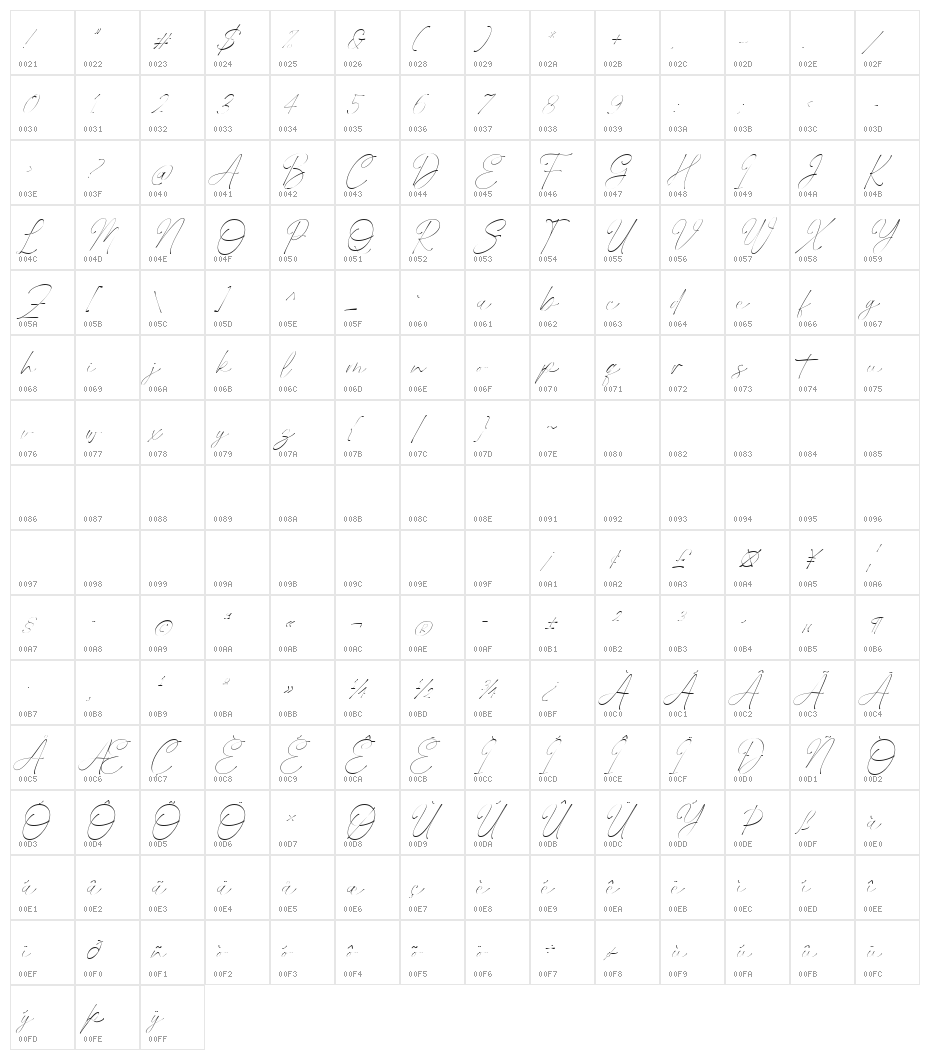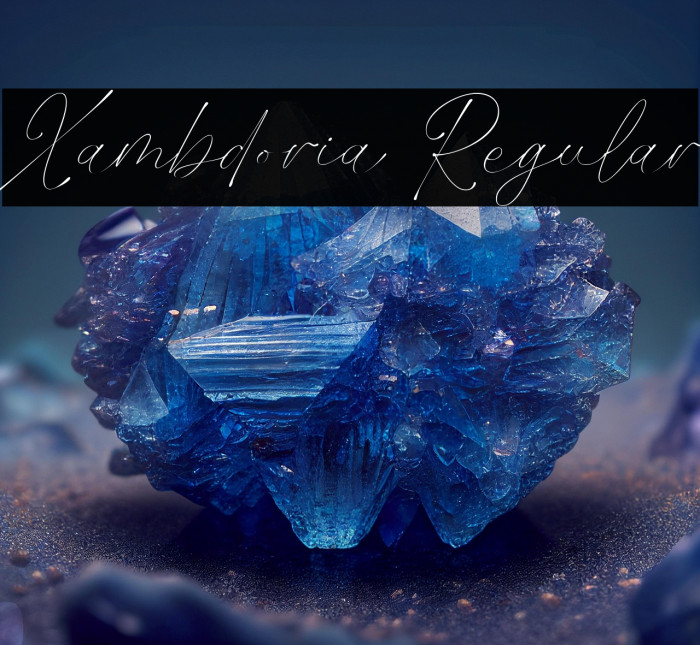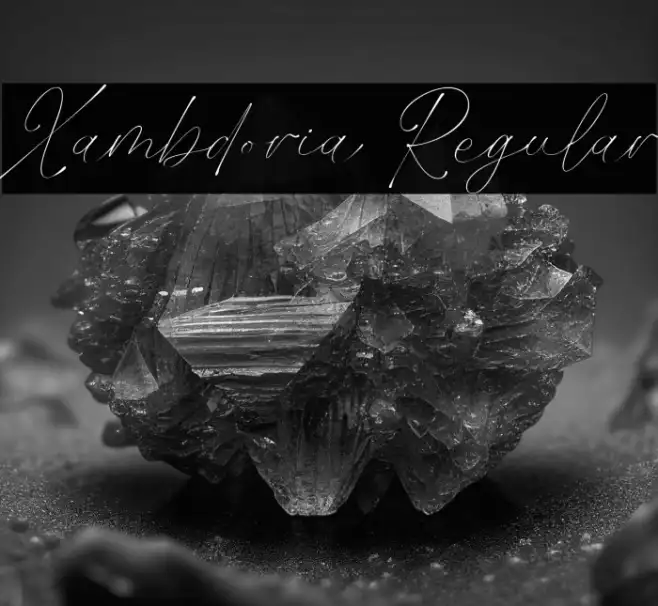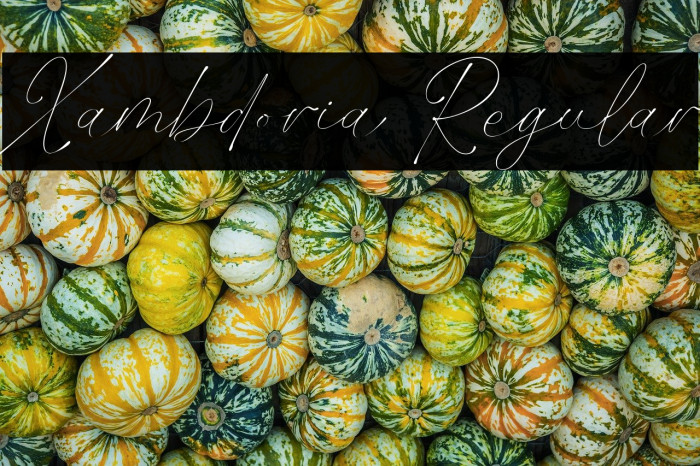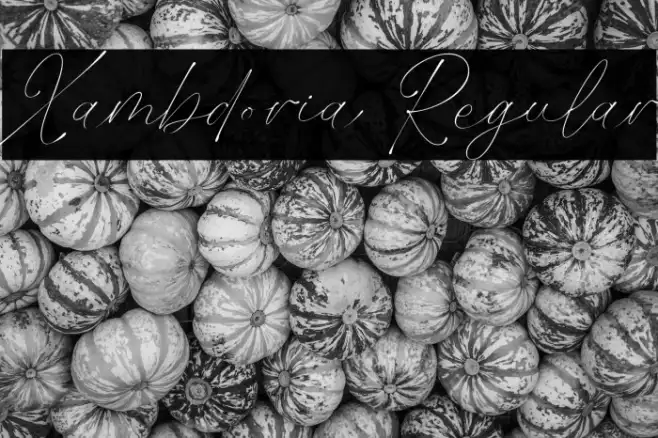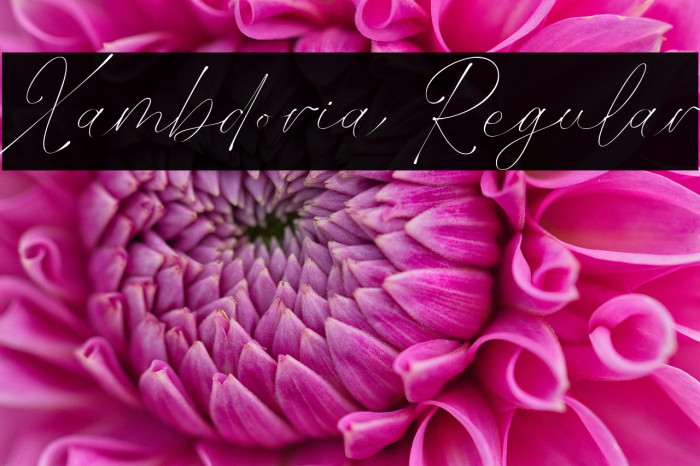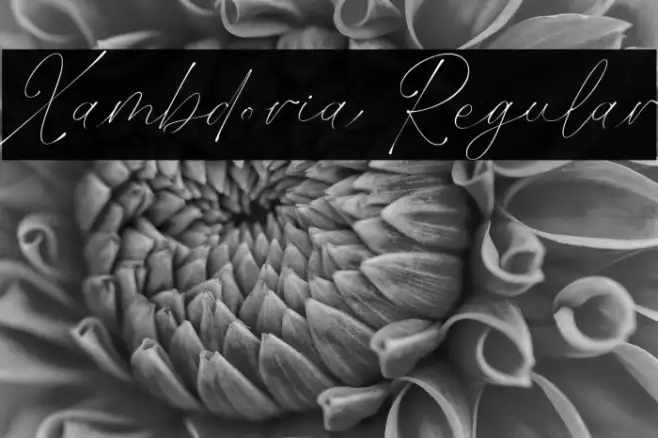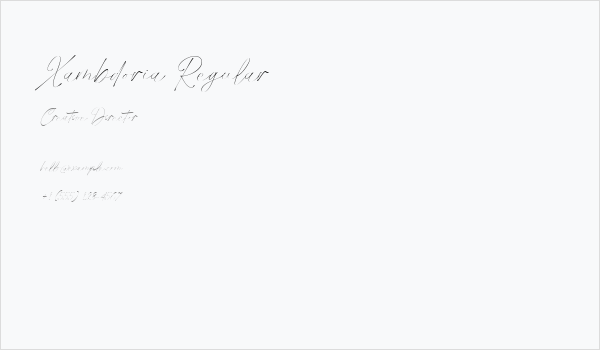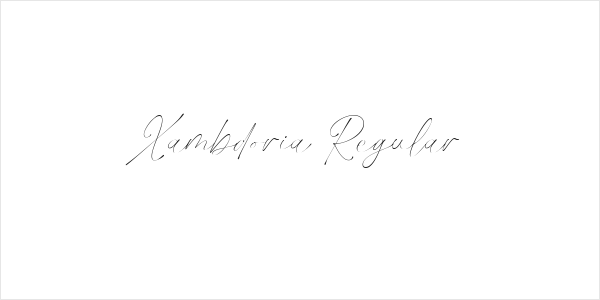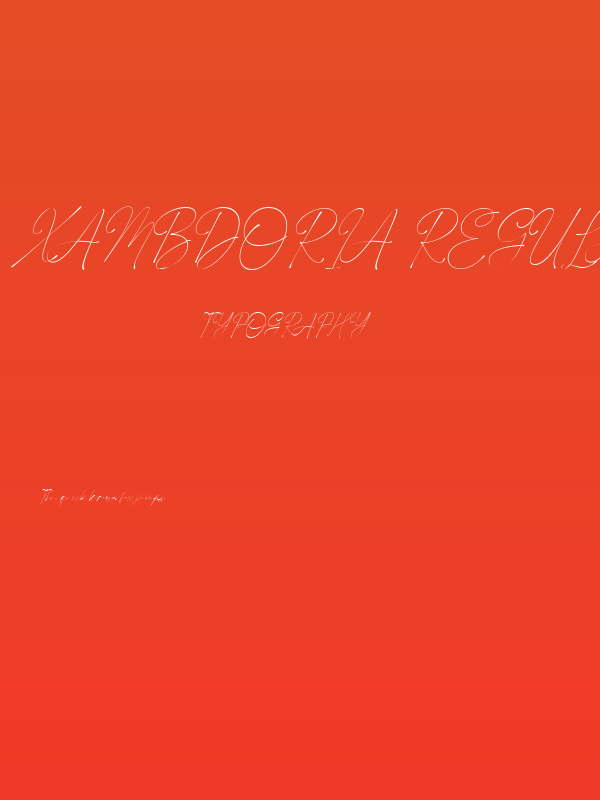
Xambdoria Regular Font
Xambdoria Regular Description
This font exhibits an elegant and flowing script style, characterized by its delicate and thin strokes. The letters are connected in a cursive manner, giving it a handwritten appearance. The uppercase letters are slightly more elaborate, with graceful loops and curves, while the lowercase letters maintain a consistent fluidity. The numerals and special characters are designed to match the overall aesthetic, ensuring a cohesive look. This font is ideal for projects that require a touch of sophistication and elegance.
Overall StyleElegant
Use CaseLogos, Invitations, Decorative text
Proposed ProjectsWedding invitations, elegant branding, personal stationery, and upscale packaging.